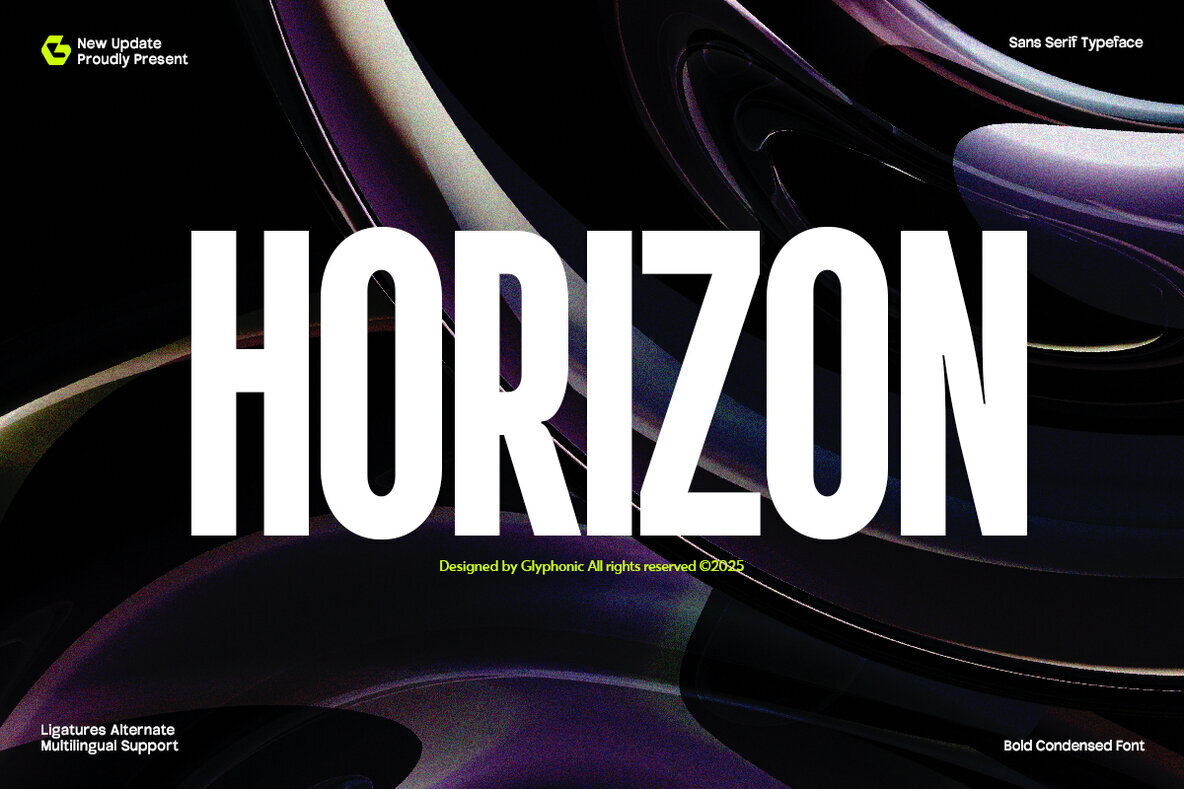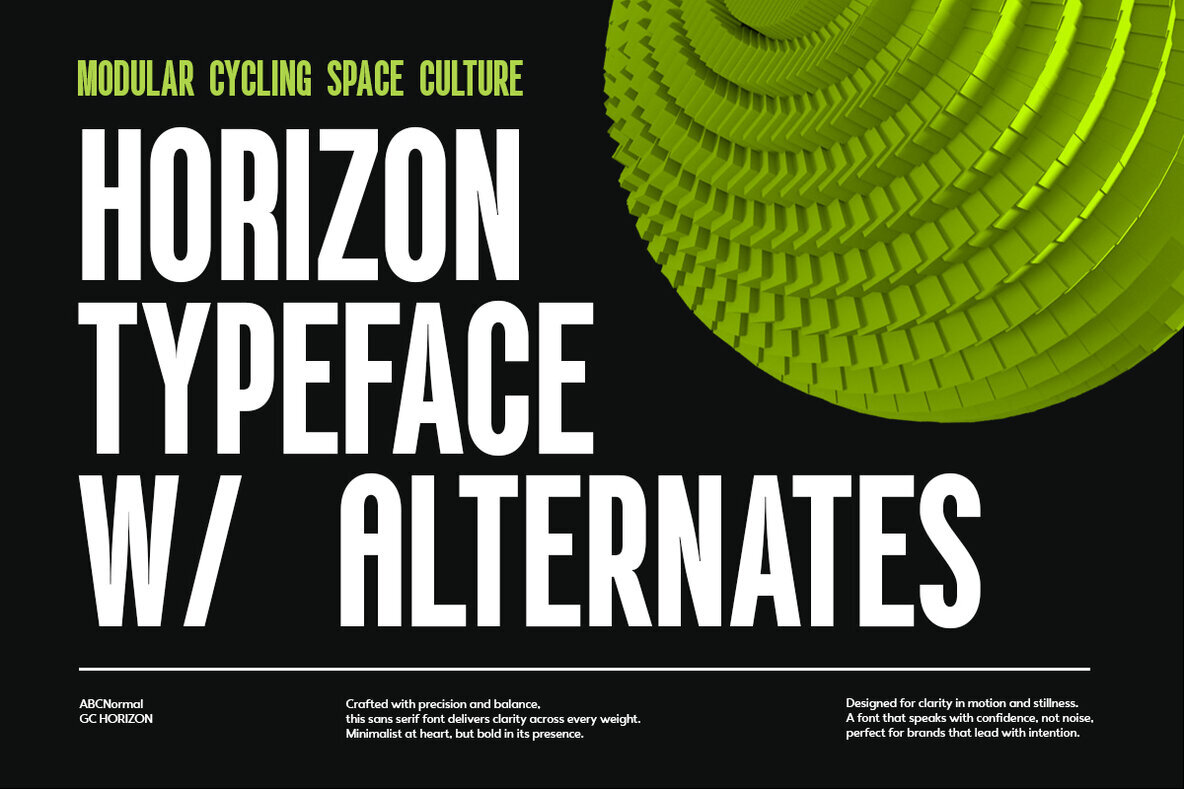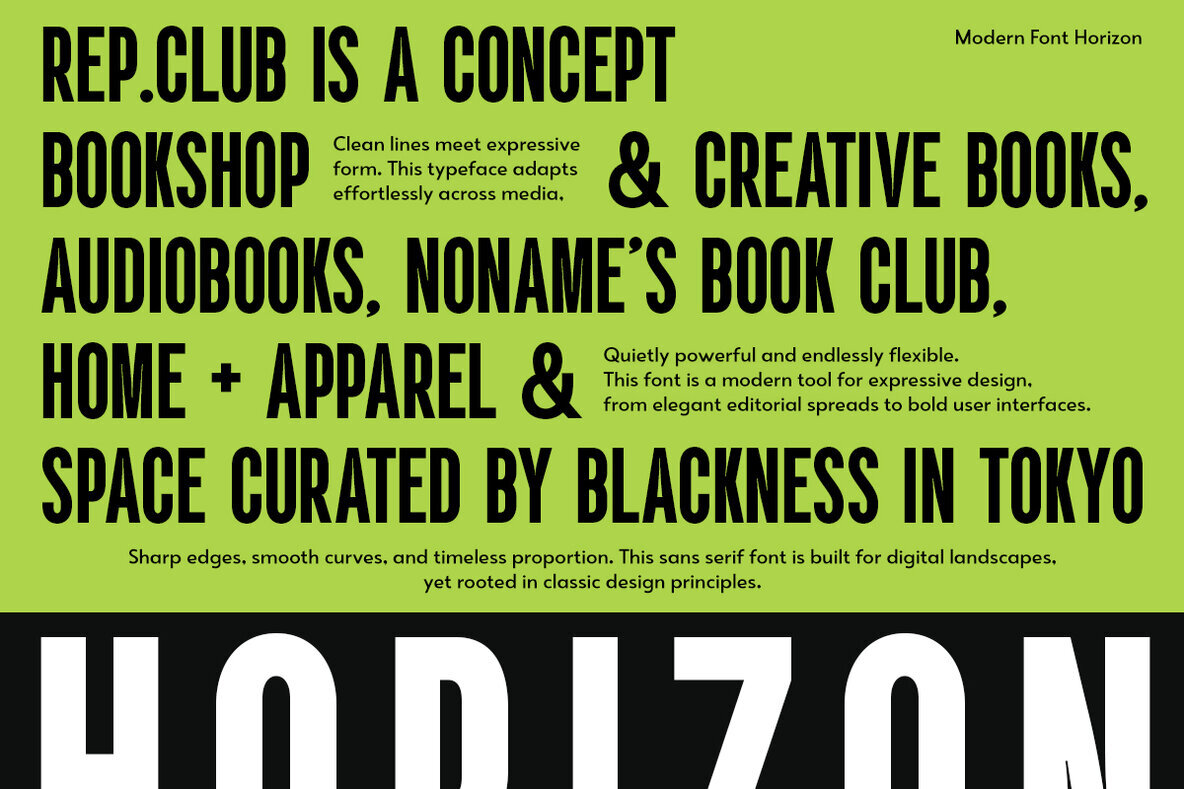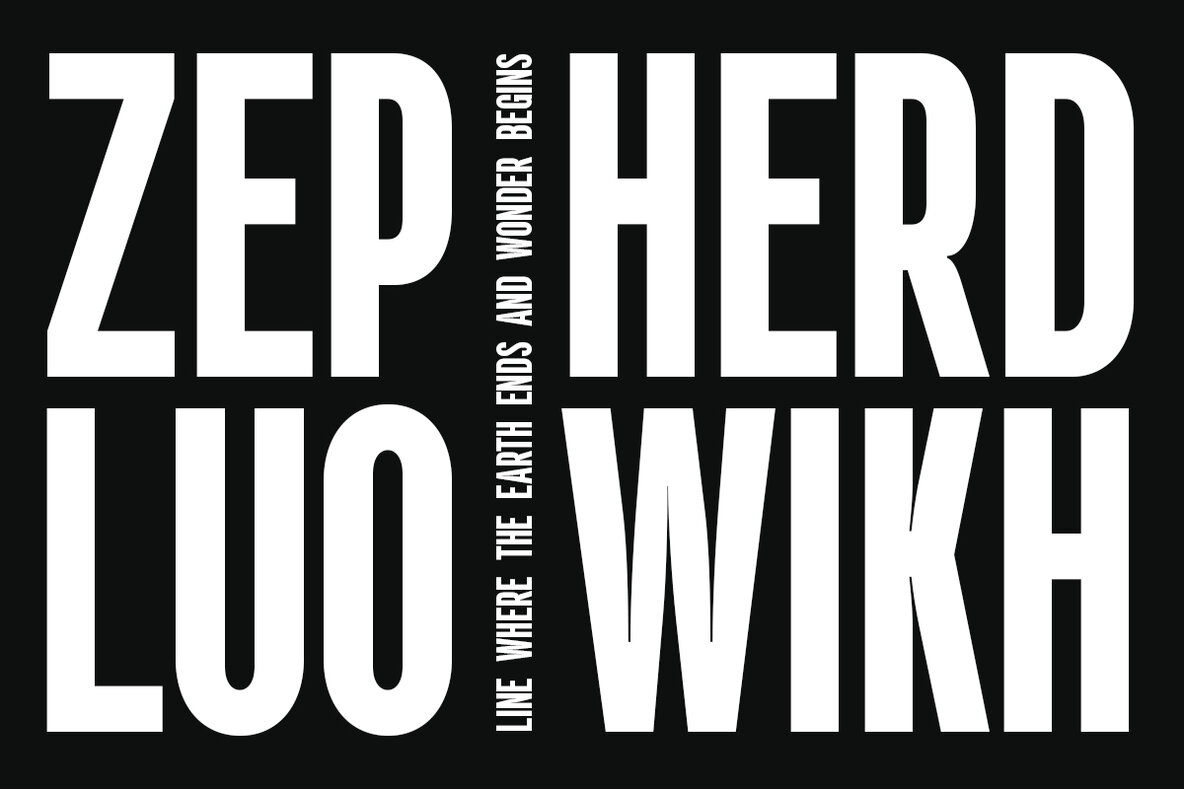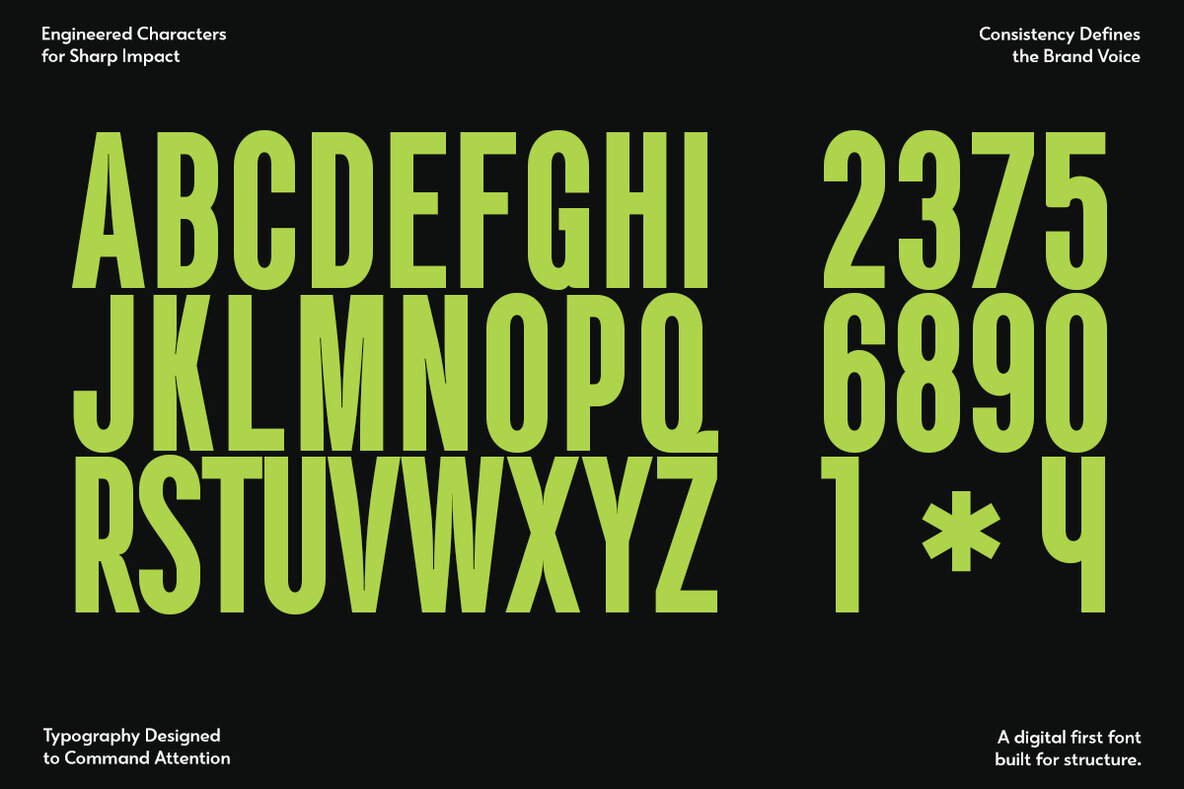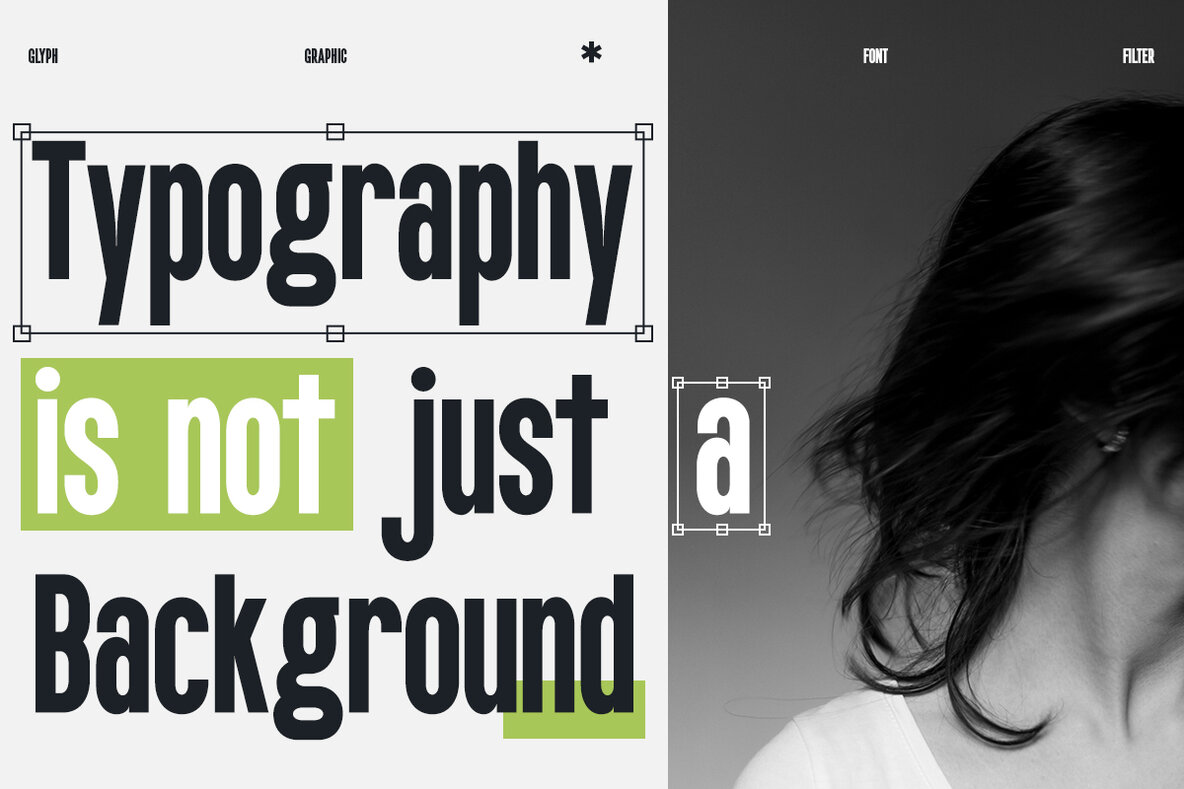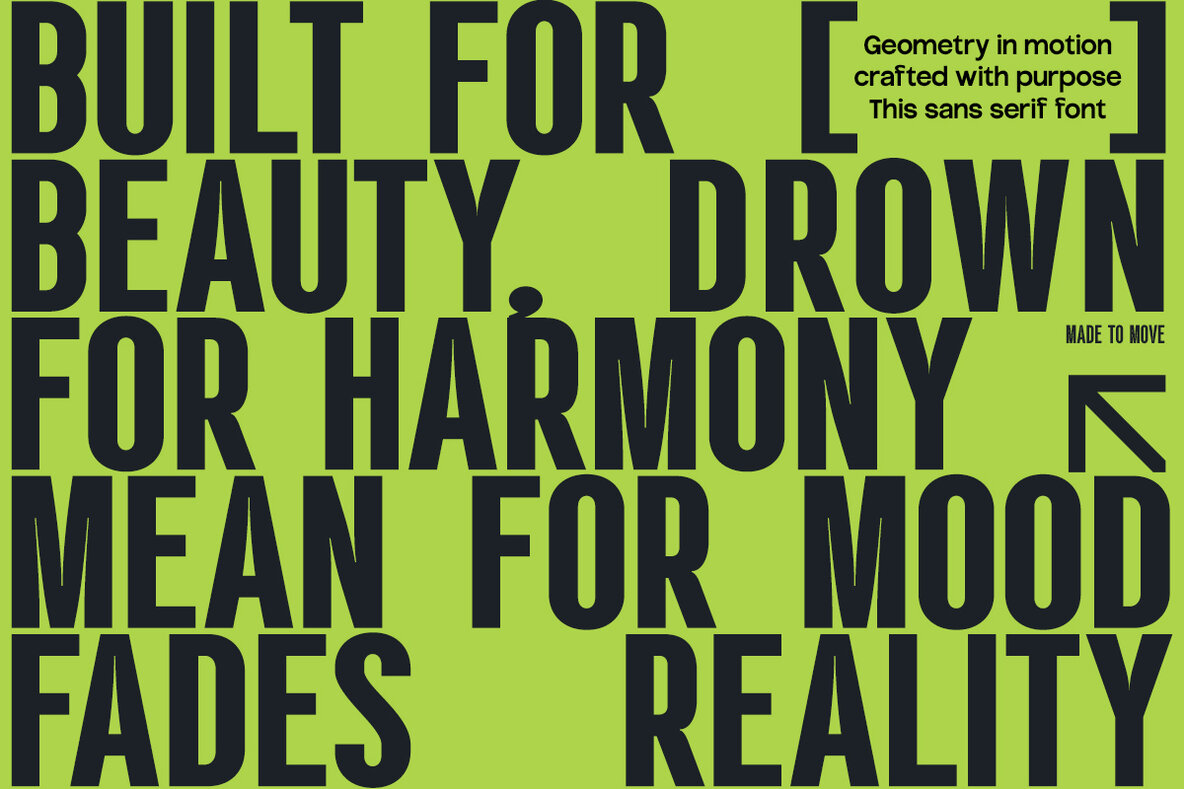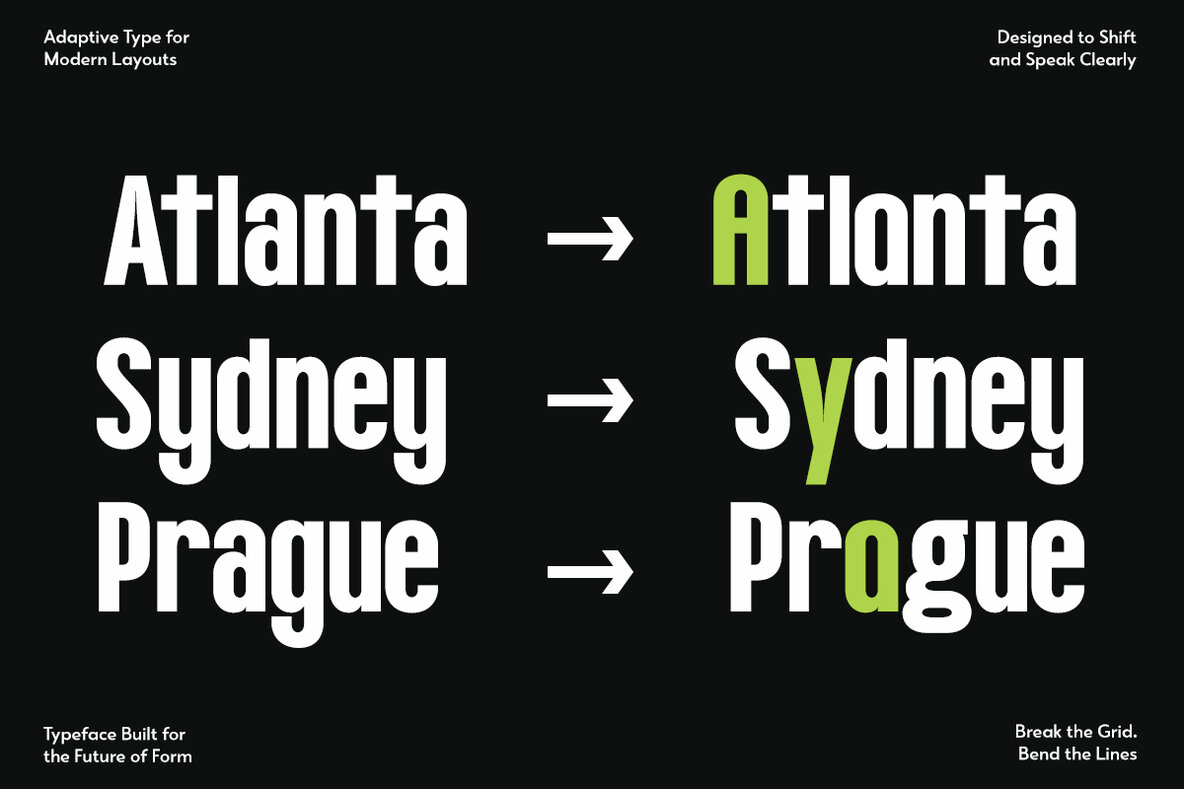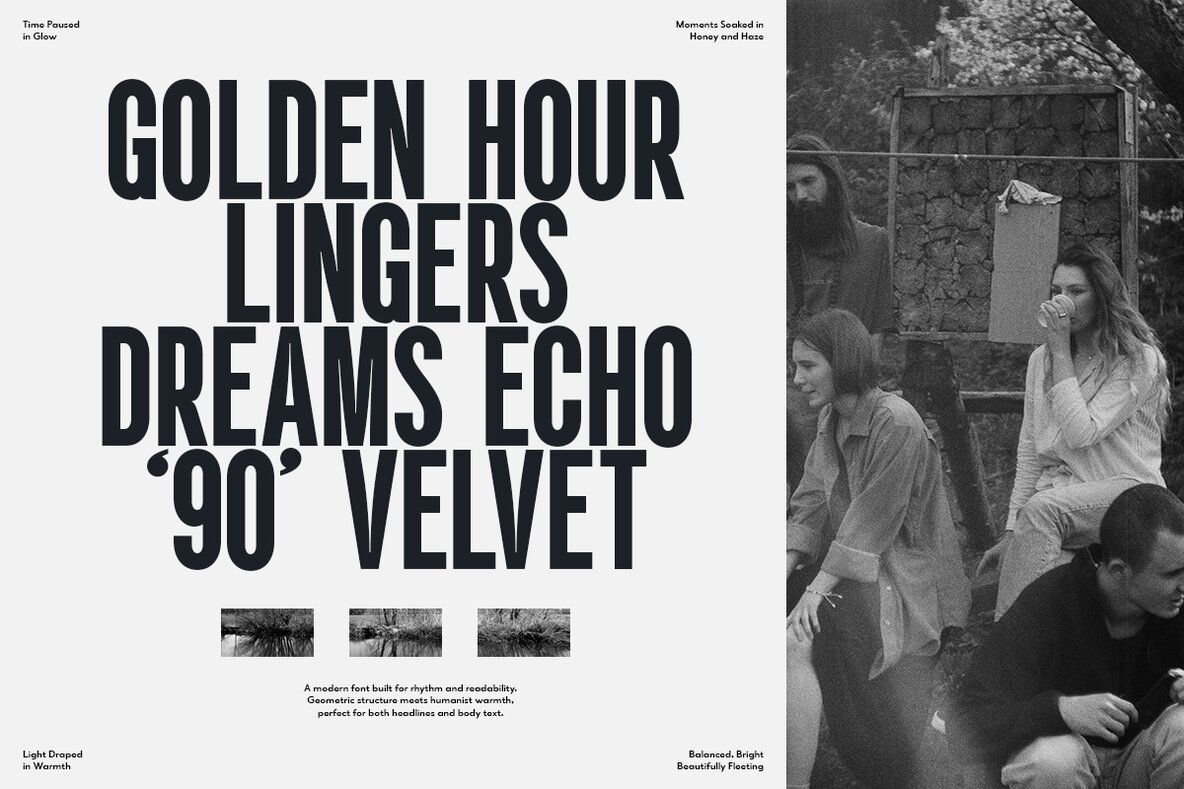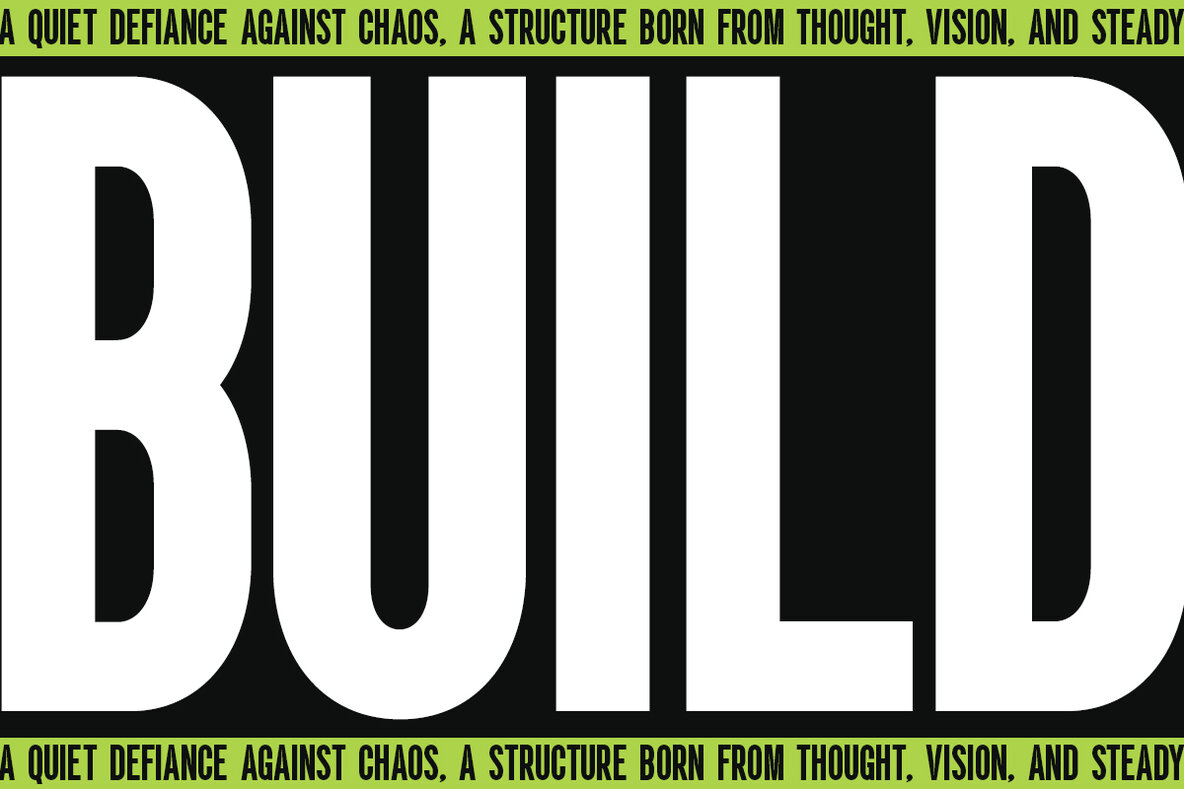
GC Horizon Font
GC HORIZON Bold
The GC Horizon font bridges modern boldness with a distinctive edge, perfectly fitting for headlines, branding, logos, packaging, and editorial layouts. Designed to make a memorable impression, it features high-contrast strokes paired with a futuristic sans aesthetic. GC Horizon infuses personality and sophistication into any design project. Whether you are crafting visuals for fashion, lifestyle, or artistic purposes, it offers both versatility and refined style. Enhance your designs with the bold, refined, and timeless qualities of GC Horizon.GC Horizon: Bold Condensed Font with Modern Flair